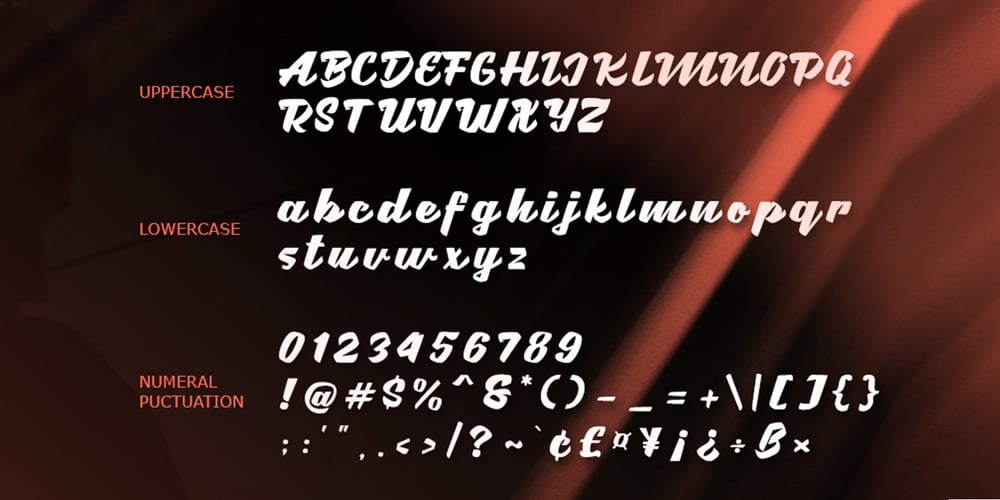
Brotha Script
Brotha Script font
Brotha Script Font Family was designed by Syaf Rizal and published by Khurasan. Brotha Script contains 1 styles and family package options. Brotha Script Font is a fun bold script, fresh and with a modern style . Brotha script font is good for you to apply as the main title of your design work, and for those of you who like thick fonts in the style of calligraphy. This font is very useful then if you don’t have it. Brotha Script Font suitable for logos, branding, greeting cards, posters and any design that you create.